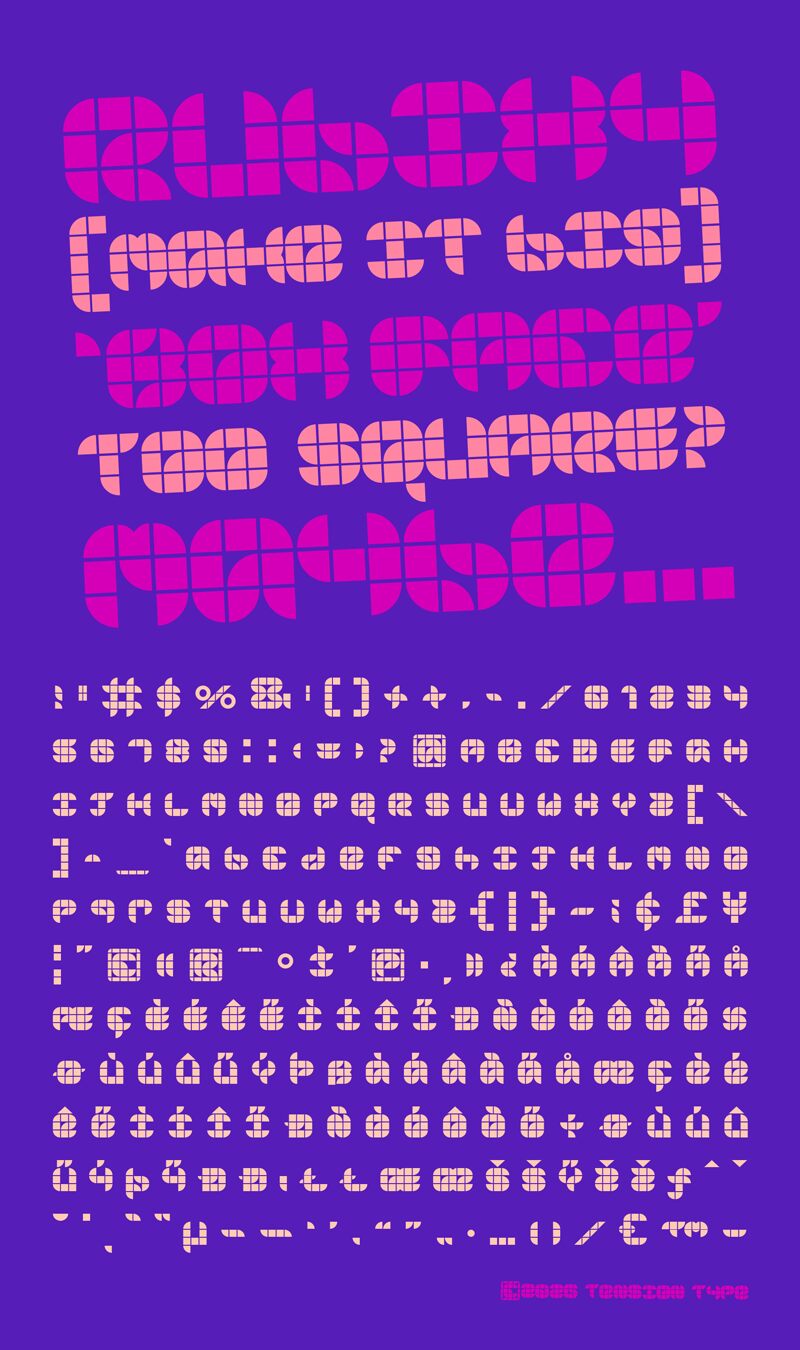
Box Face font is a free techno font designed by Tension Type. This typeface is structured and geometric, which makes it perfect for creating typography with a digital aesthetic. Its grid-based approach supports its modern letters and reminds users of contemporary technological elements. It is certain to find effective applications in today’s projects across various fields.
Get the most out of this font by using it for branding purposes in the tech industries. It is possible to also use it in trendy print media and numerous digital media channels. The recipient channel is secondary, as Box Face’s letters will always keep the attention they’re given.
Box Face began as a fun experiment to see how many letters I could create within a minimal space. Although I broke a few rules along the way, the result is a complete typeface that shines at large sizes. It's ideal for display purposes and perfect for projects that require a bold, eye-catching font.